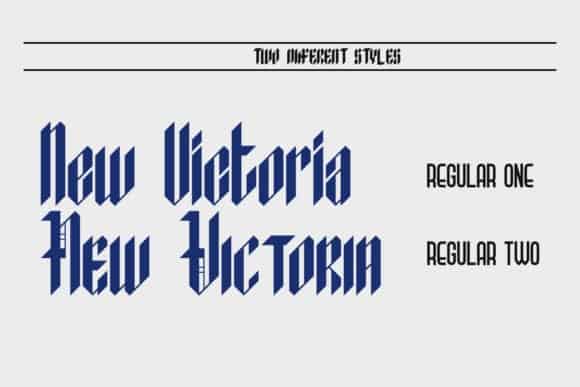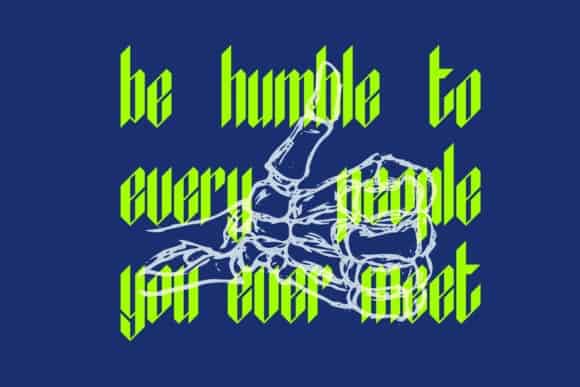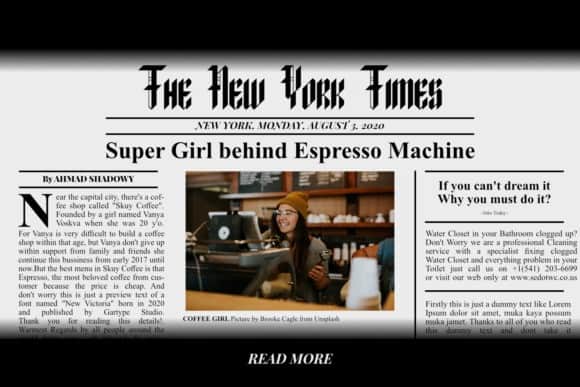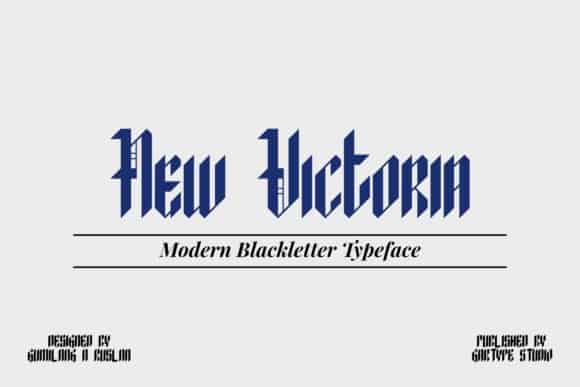
New Victoria Blackletter Font is a modern blackletter display-face. Made from font designer named GartypeStudio. It was born from the world of knights, magic, and jesters. The typeface includes ligatures, lower-case, caps, and old-style caps. The typeface works best set in large display sizes. Add it to your creative ideas and notice how it makes them stand out!